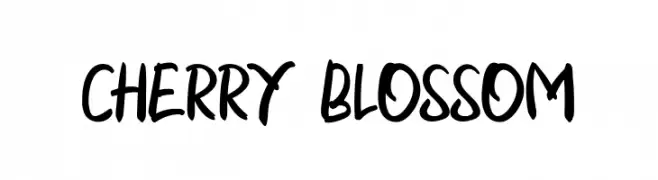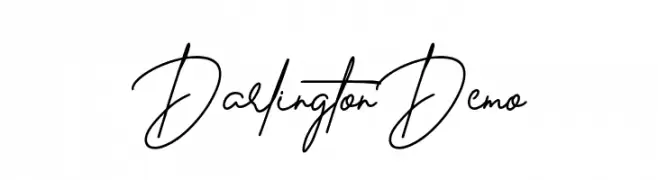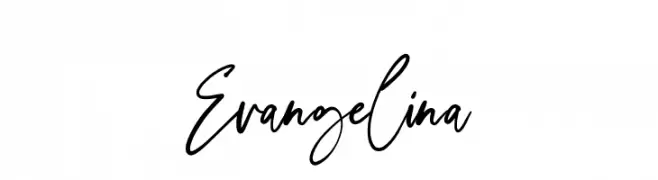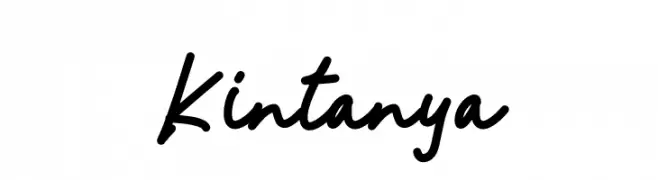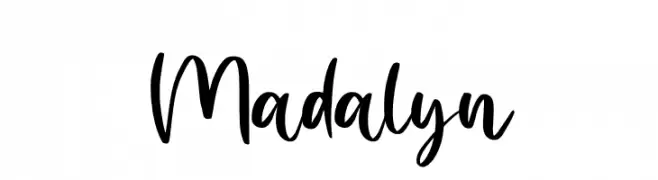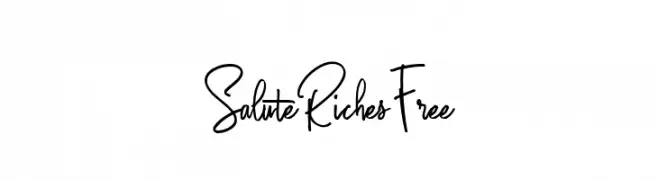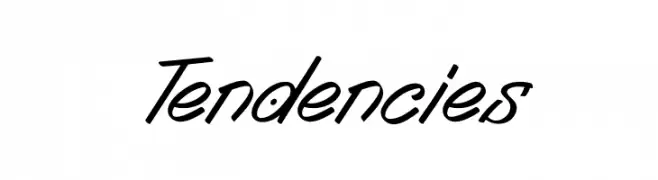
A lively, expressive handwritten font with fluid strokes and elegant flair.
A fluid, cursive script font with a handwritten appearance.
A lively and expressive handwritten font with flowing, interconnected letterforms.
A fluid and dynamic script font with a personal, handwritten touch.
A fluid and elegant handwritten font with a natural cursive style.
A playful, handwritten font with a casual and dynamic style.
A dynamic and elegant cursive script font with a flowing, handwritten style.
A dynamic and expressive handwritten font with fluid cursive letterforms.
A dynamic and expressive handwritten font with fluid, organic strokes.
An elegant, flowing script font with a natural handwritten style.